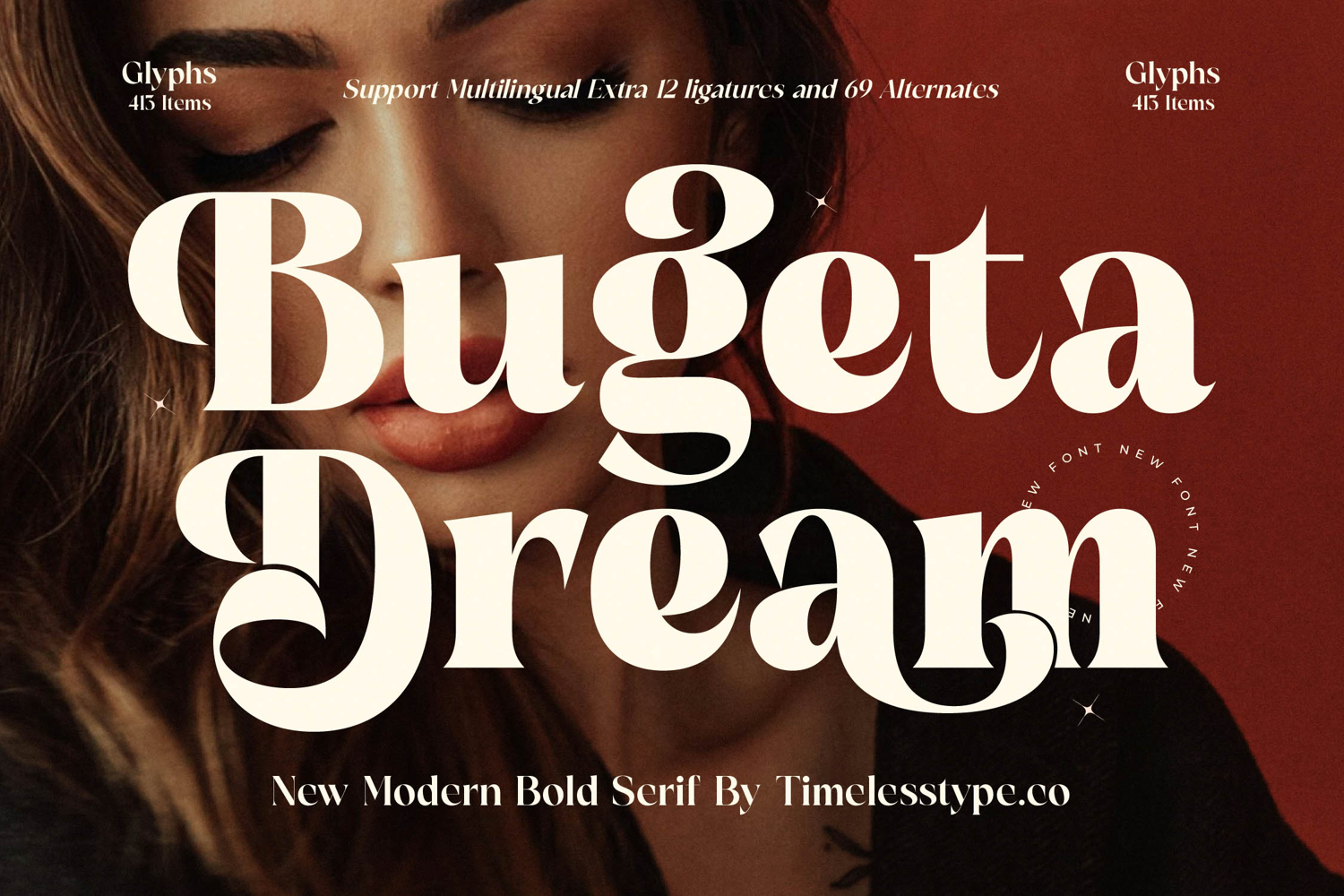
Bugeta Dream - New Modern Bold Serif
Elevate your design projects with the captivating charm of Font Bugeta Dream - New Modern Bold Serif Serif Display. This exquisite display font commands attention with its effortlessly elegant yet undeniably bold presence. Its sophisticated fusion of high-contrast strokes and fluid curves creates a mesmerizing aesthetic, perfect for crafting impactful headlines and distinguished visual identities that resonate with a sense of luxury and modernity.
Discover unparalleled character and design versatility within Font Bugeta Dream - New Modern Bold Serif Serif Display. Each letterform is meticulously balanced, showcasing a harmonious interplay between its robust weight and gracefully flared serifs. This unique combination delivers a visually rich experience, ensuring your text is not just read, but truly felt, establishing a powerful connection with your audience through its timeless appeal and contemporary flair.
Expand your creative reach globally with confidence. With its extensive multilingual support, Font Bugeta Dream - New Modern Bold Serif Serif Display adapts seamlessly across global markets, making it incredibly versatile for international projects. Further enhanced by a comprehensive set of extra ligatures and alternates, this font offers profound design flexibility, allowing for truly unique typographic expressions that capture diverse cultural nuances.
Unleash unforgettable design across a multitude of applications. Font Bugeta Dream - New Modern Bold Serif Serif Display is meticulously crafted to excel in luxury branding, high-end packaging, fashion editorial design, magazine layouts, invitations, and distinctive logo creation. It is the ultimate choice for designers seeking to infuse their work with an air of exclusivity, refined elegance, and enduring visual impact.